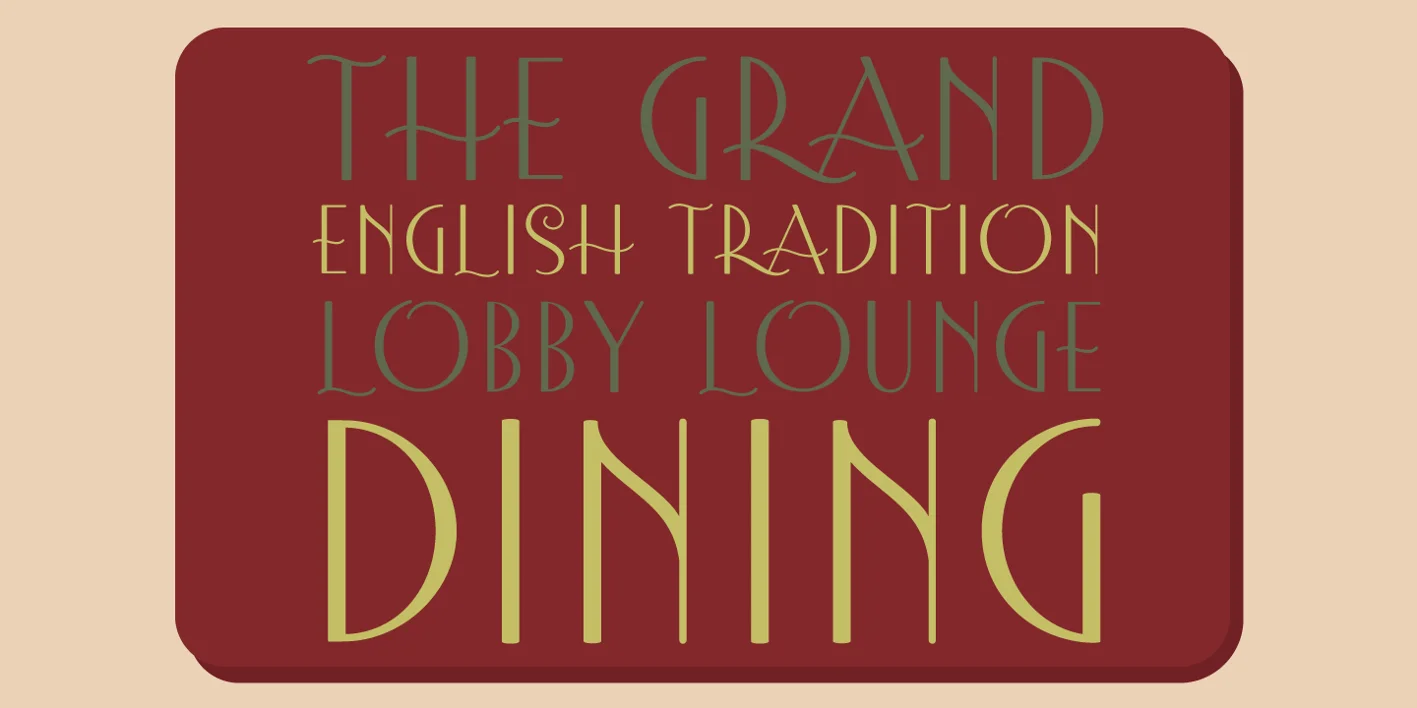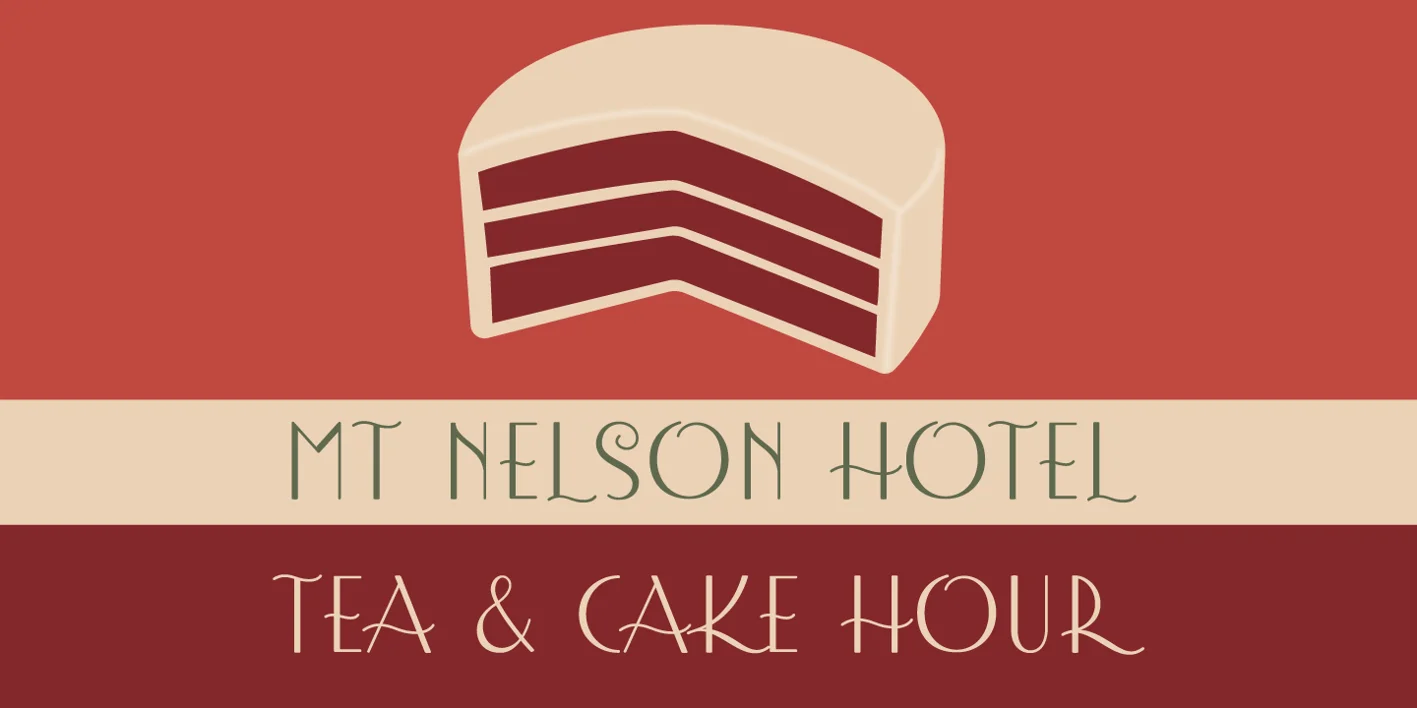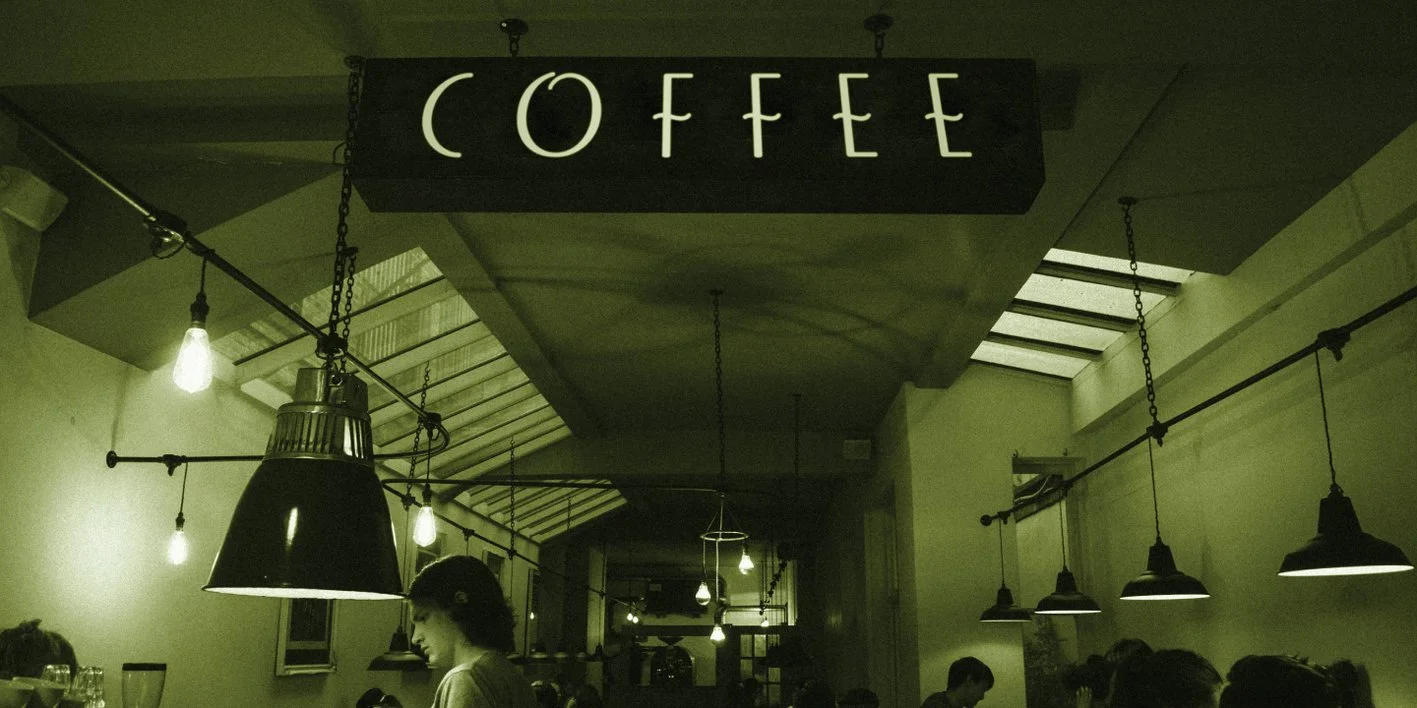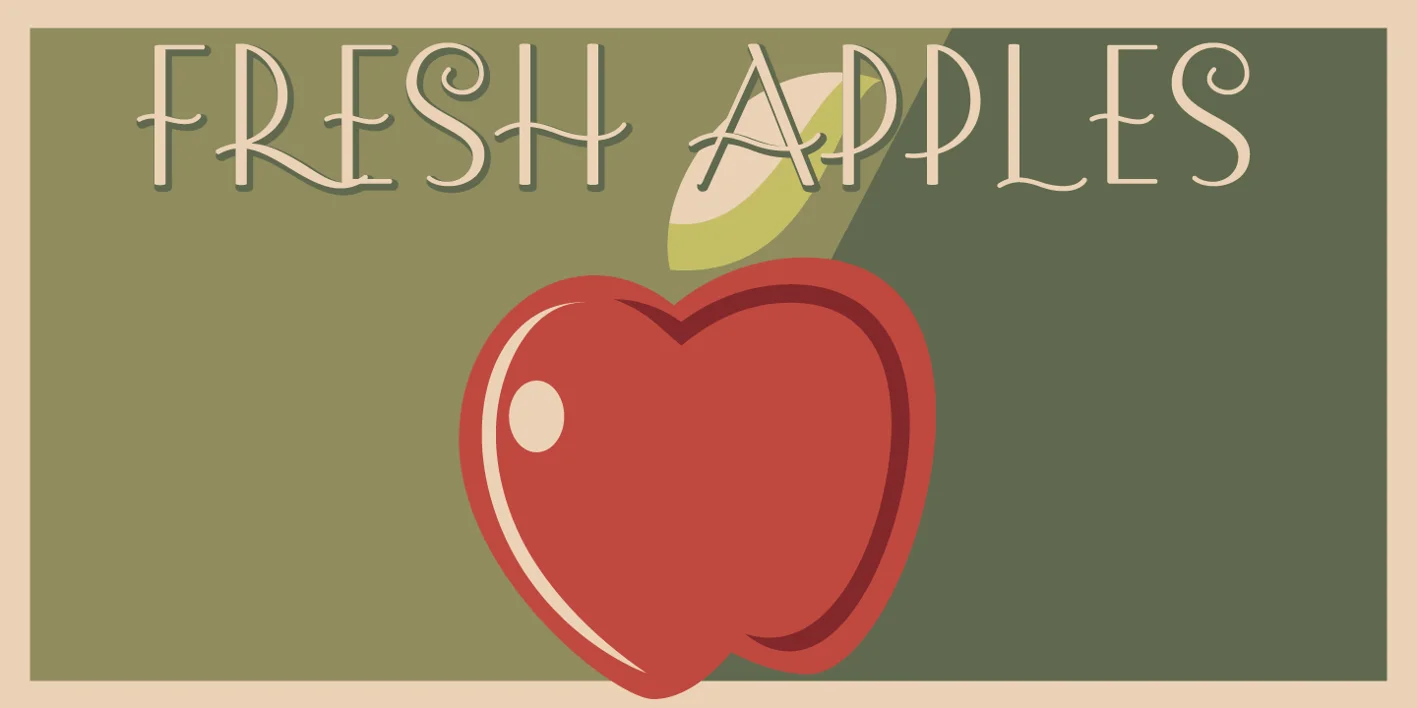
Afternoon Tea Font
There is a particular satisfaction in finding a typeface that delivers distinctive character without sacrificing readability without compromise. Afternoon Tea consistently provides it. The typeface brings a versatile sensibility to a broad range of creative disciplines, with a confident voice that adapts to diverse briefs that holds up whether the work is print-first or screen-first.
In practice, Afternoon Tea proves particularly effective for product labels, signage systems, packaging design, advertising campaigns, environmental graphics. Designers reaching for it find that the type decisions feel resolved rather than laboured — a useful quality when client timelines are tight.
The range of applications extends to poster creation, logo design, editorial layouts, annual reports. That breadth is deliberate: the proportions and spacing were stress-tested across a wide range of mock briefs before the typeface was finalised.
Afternoon Tea sits comfortably alongside both classic and contemporary typefaces in multi-font hierarchies. It takes direction rather than competing for attention — a quality that experienced designers know is harder to find than it appears.
Motion designers building title sequences and lower thirds find Afternoon Tea a reliable choice for projects that demand both personality and restraint. The design avoids the self-conscious quirkiness that dates quickly, settling instead for considered distinctiveness that holds up over time.